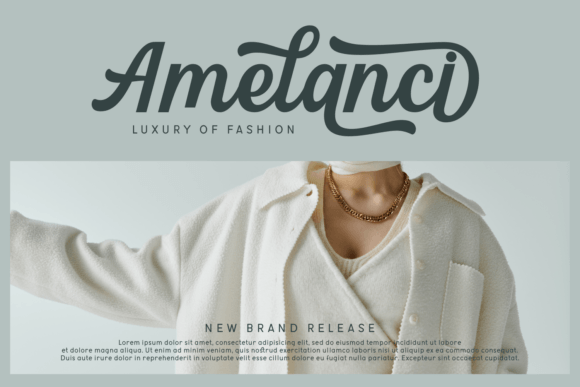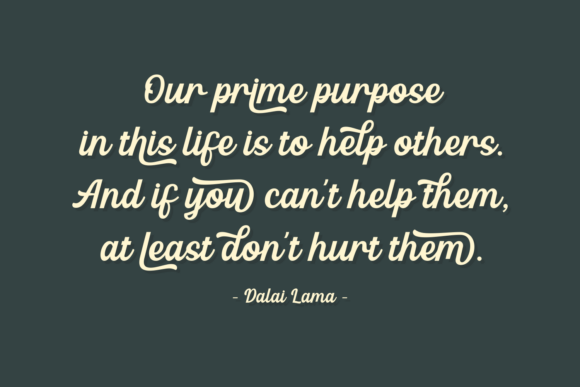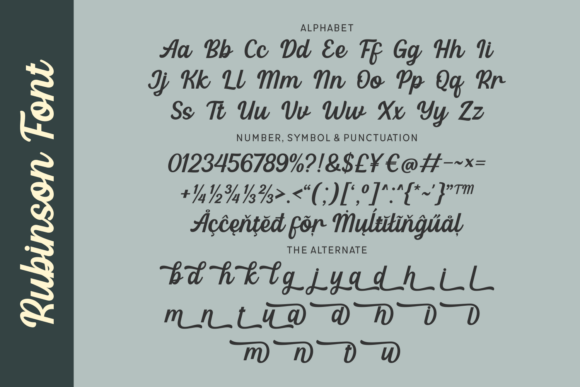
Introduction to Rubinson Font
Rubinson is a beautiful, bold script font with a flowing, handwritten style.
Its thick, smooth curves make it easy to read while adding a touch of elegance and warmth to any design Perfect for logos, invitations, or any project that needs a charming, stylish look.